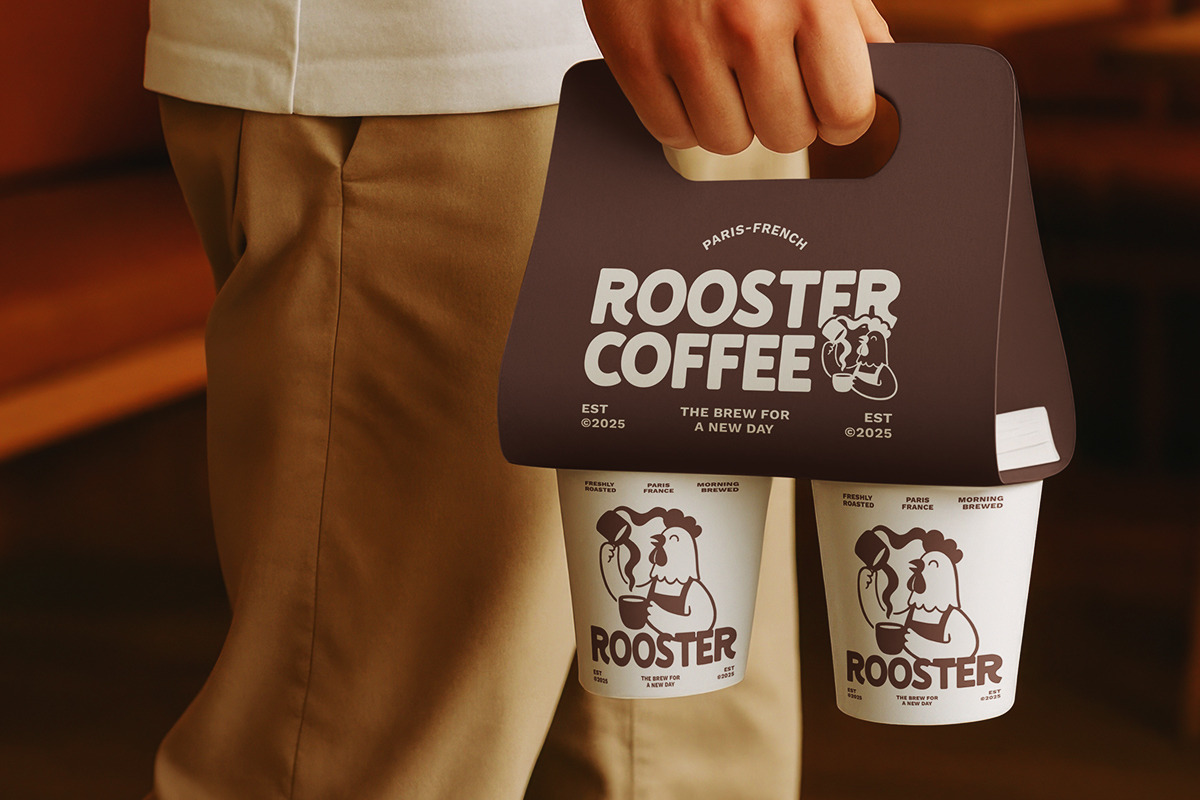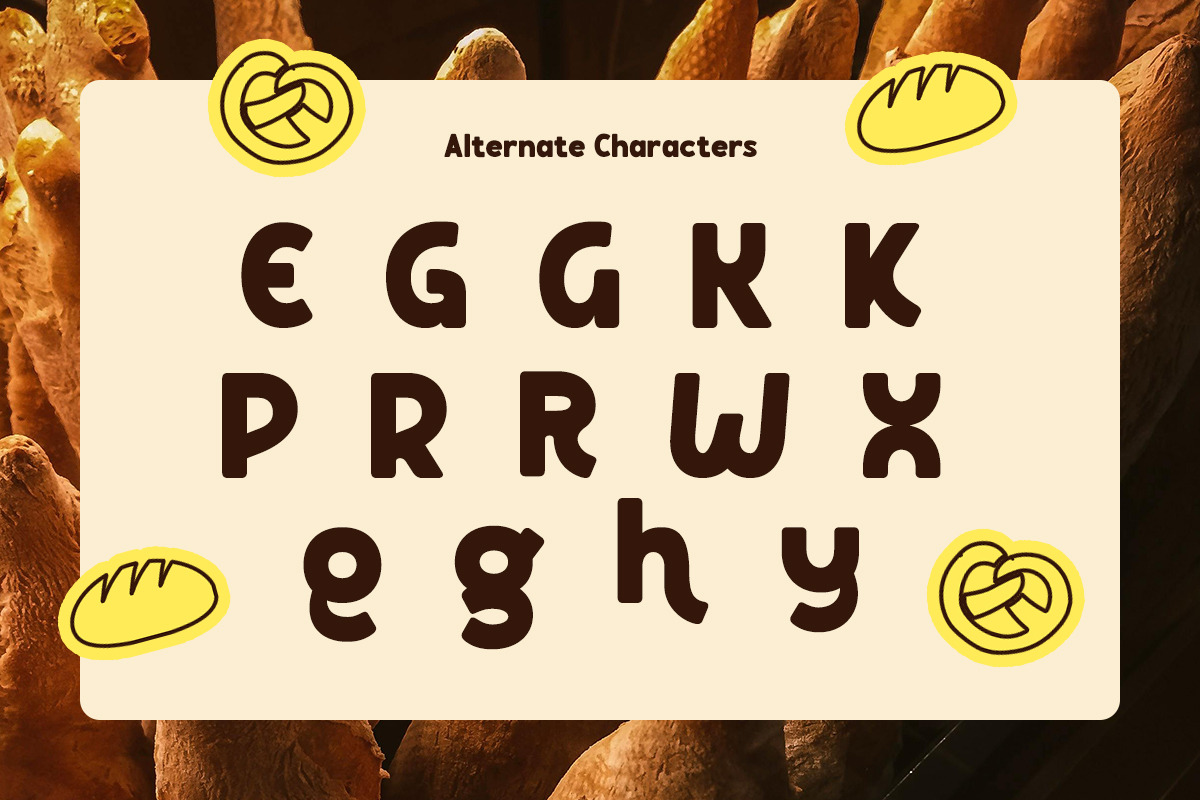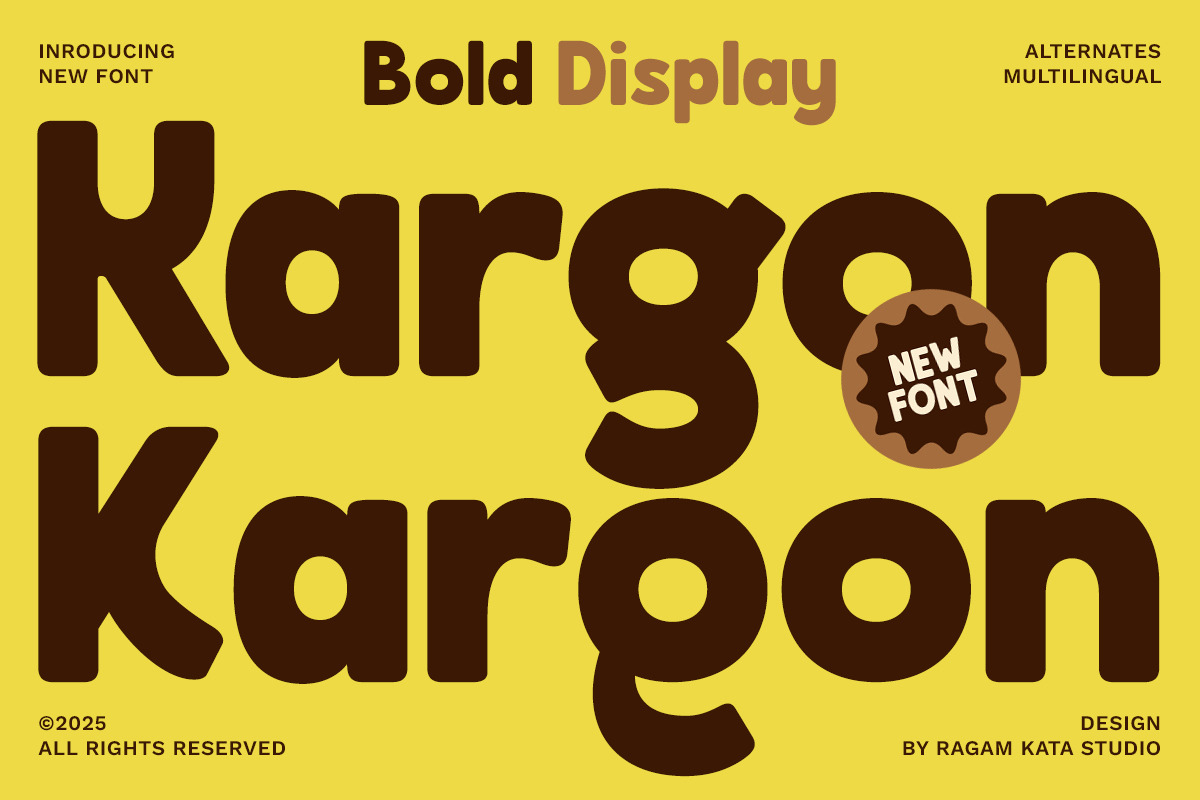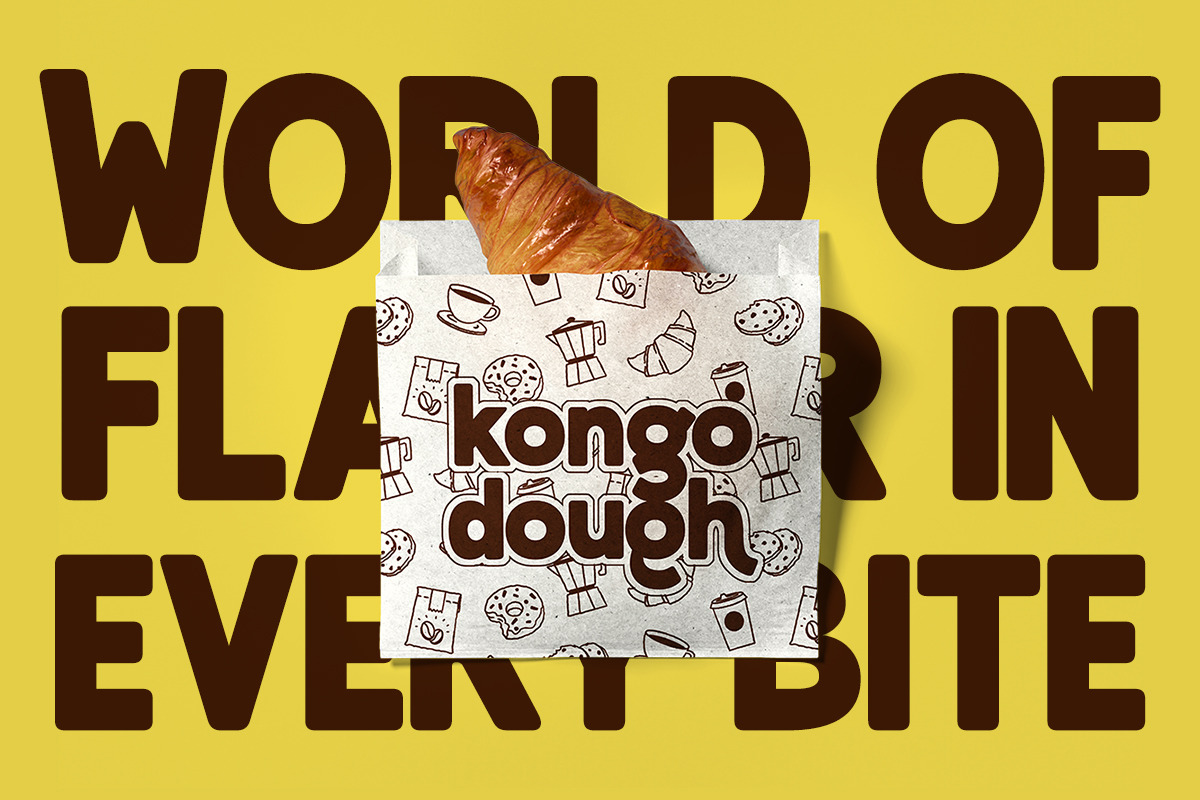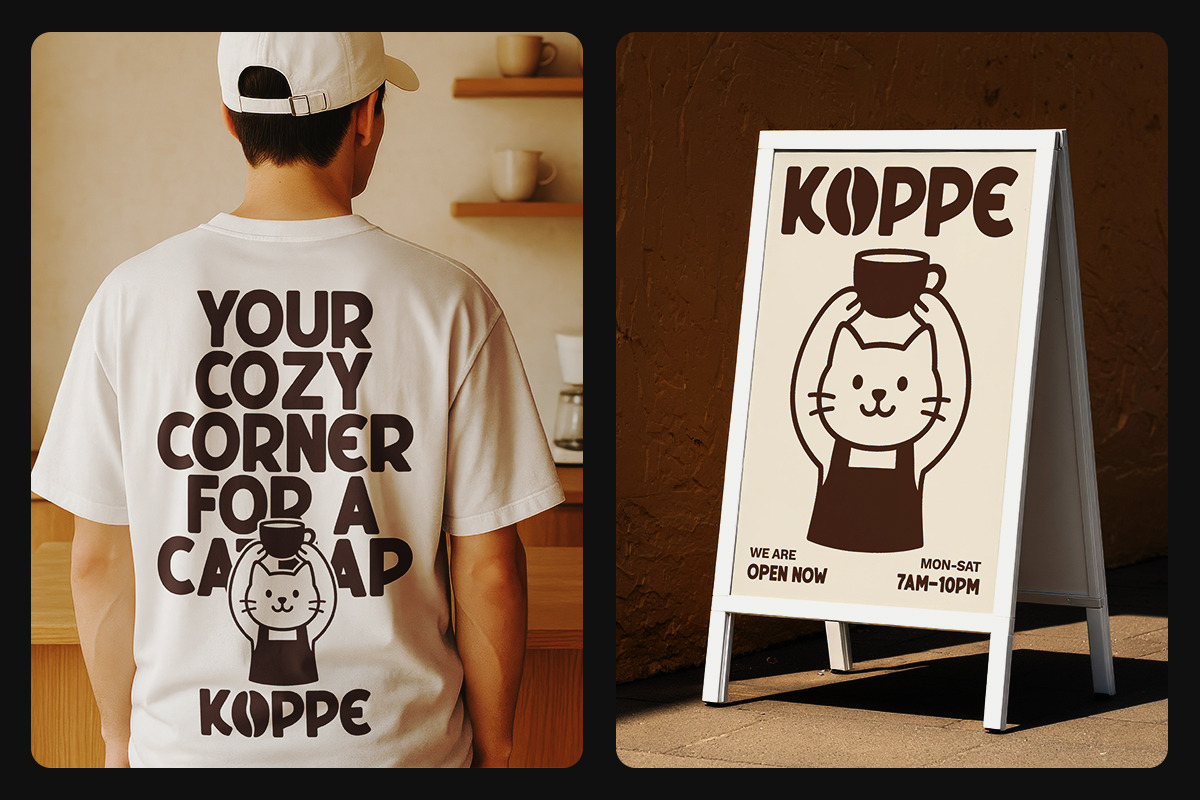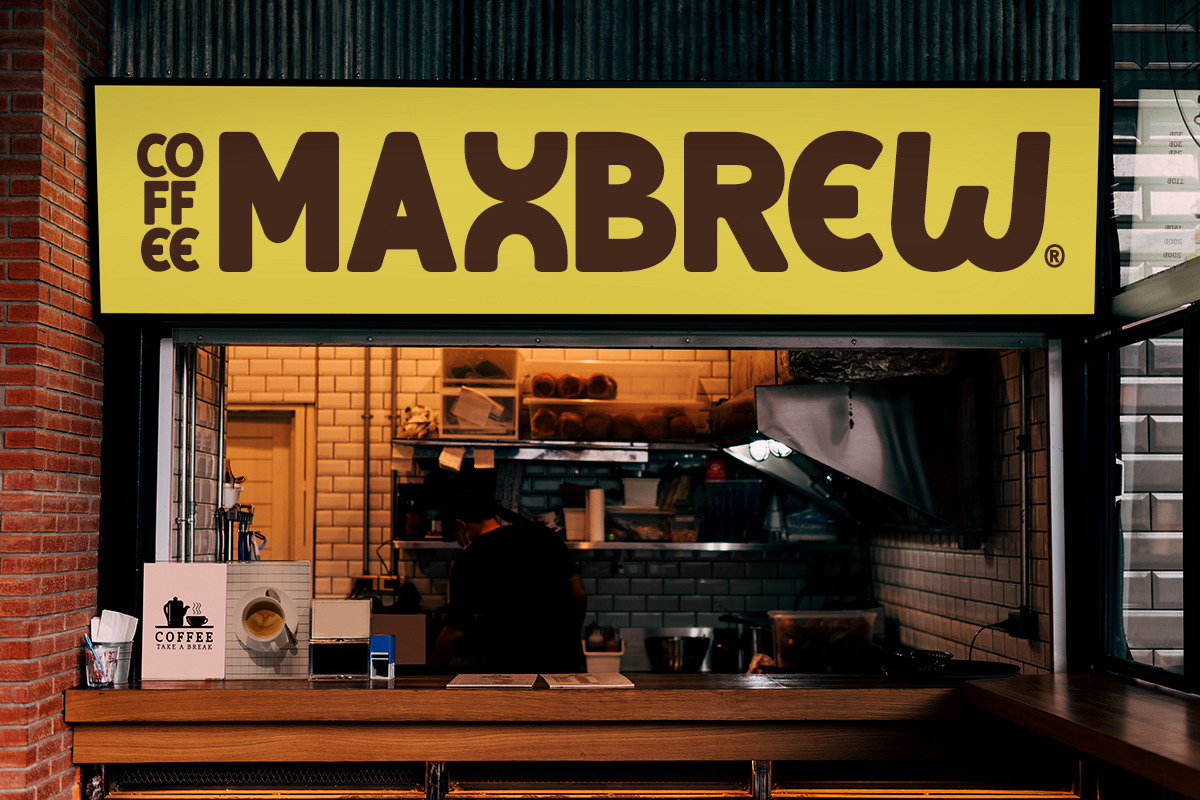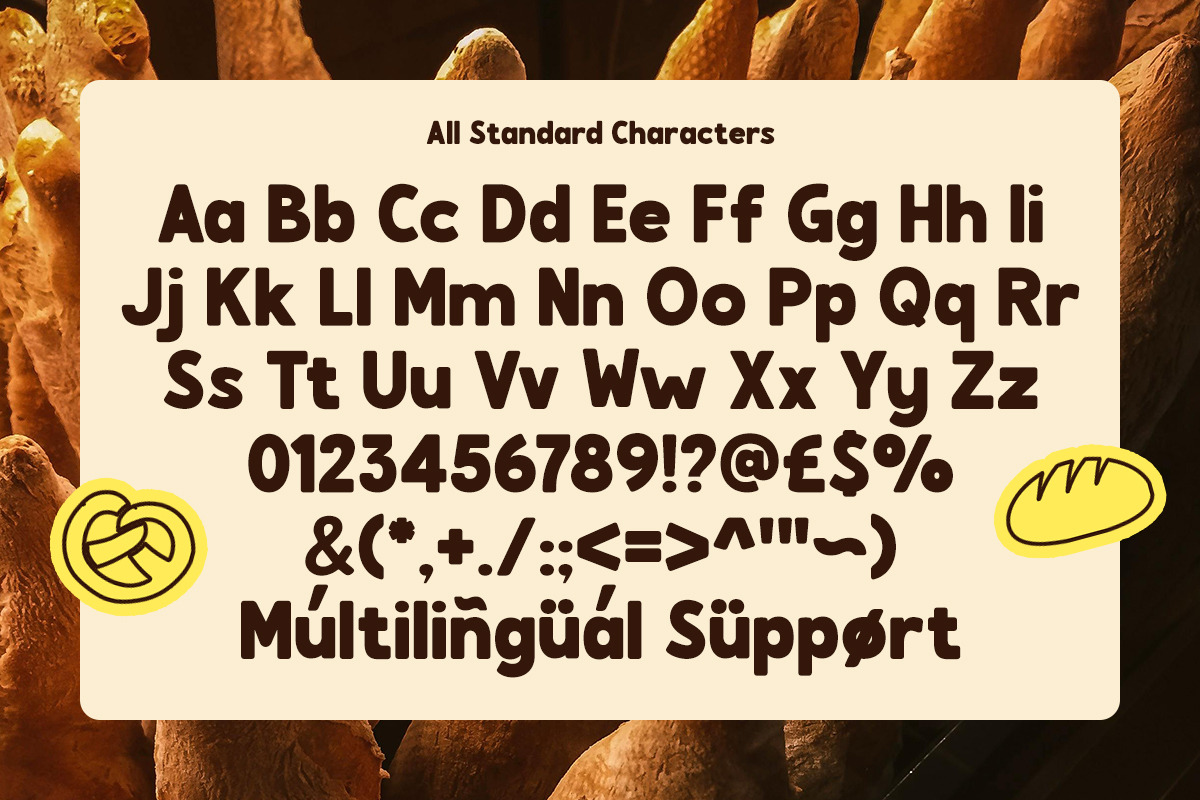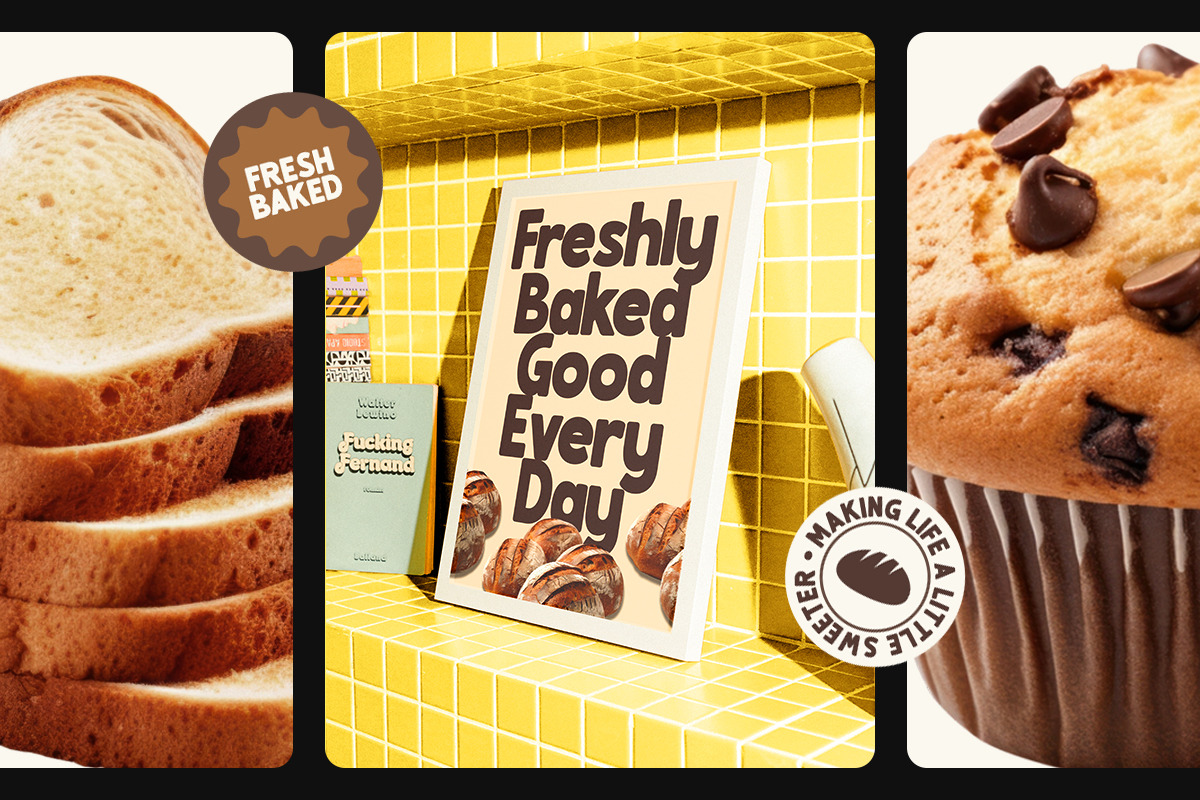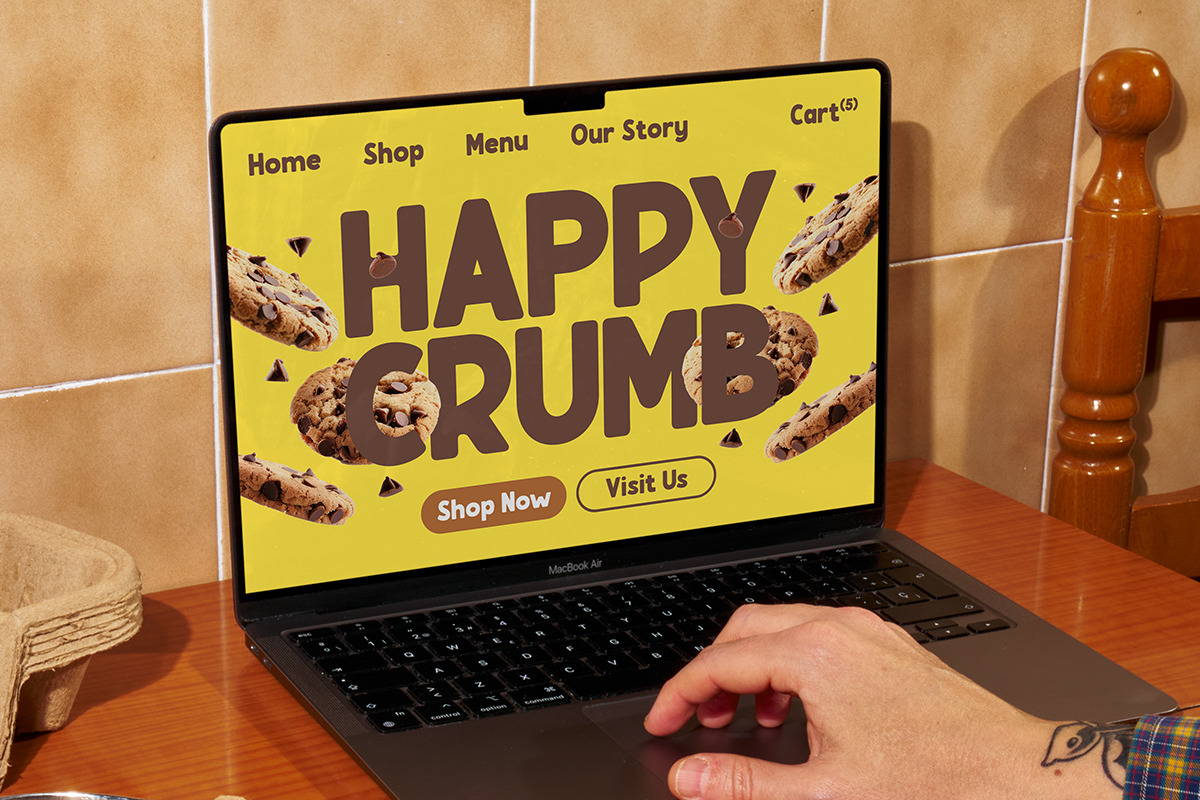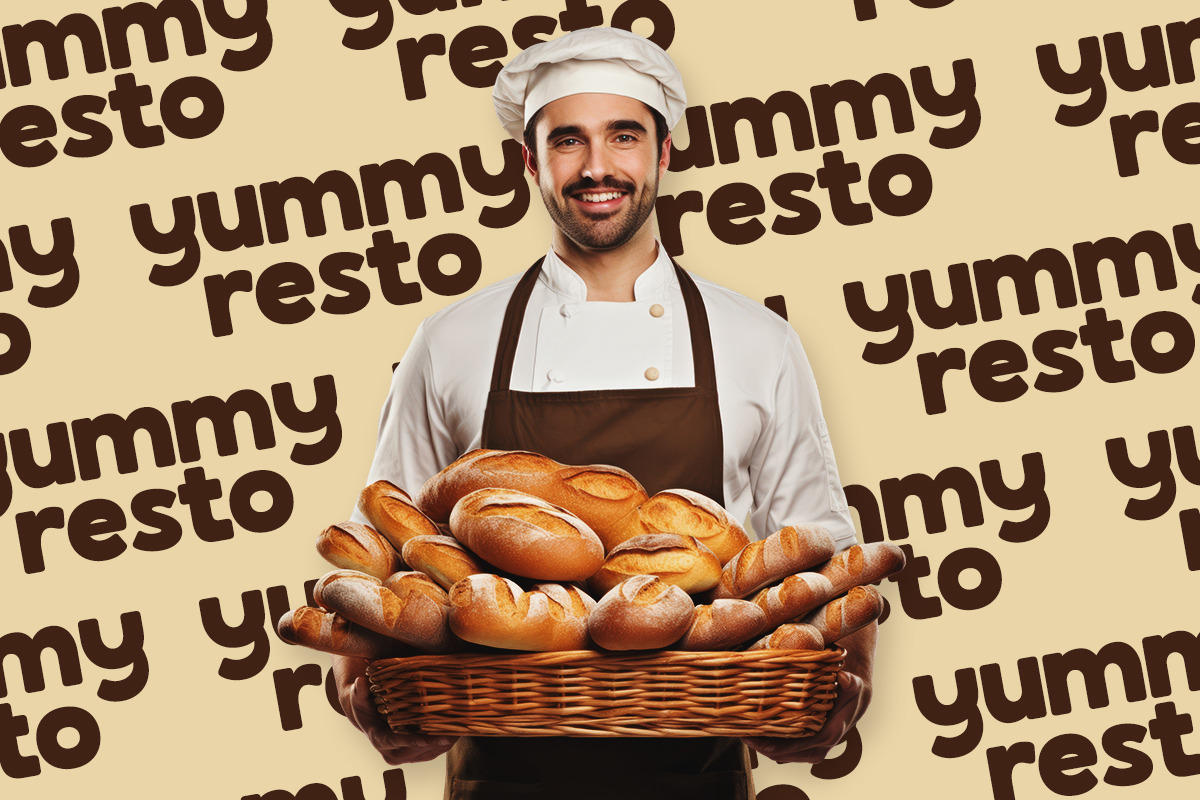
Kargon - Bold Display Font
Kargon is a bold display font with playful curves and soft edges that bring fun and confidence to any design. Perfect for branding, posters, packaging, and headlines, Kargon captures attention with its chunky, retro-inspired style. Its quirky alternates and multilingual support make it ideal for creative projects that need a touch of character and charm.